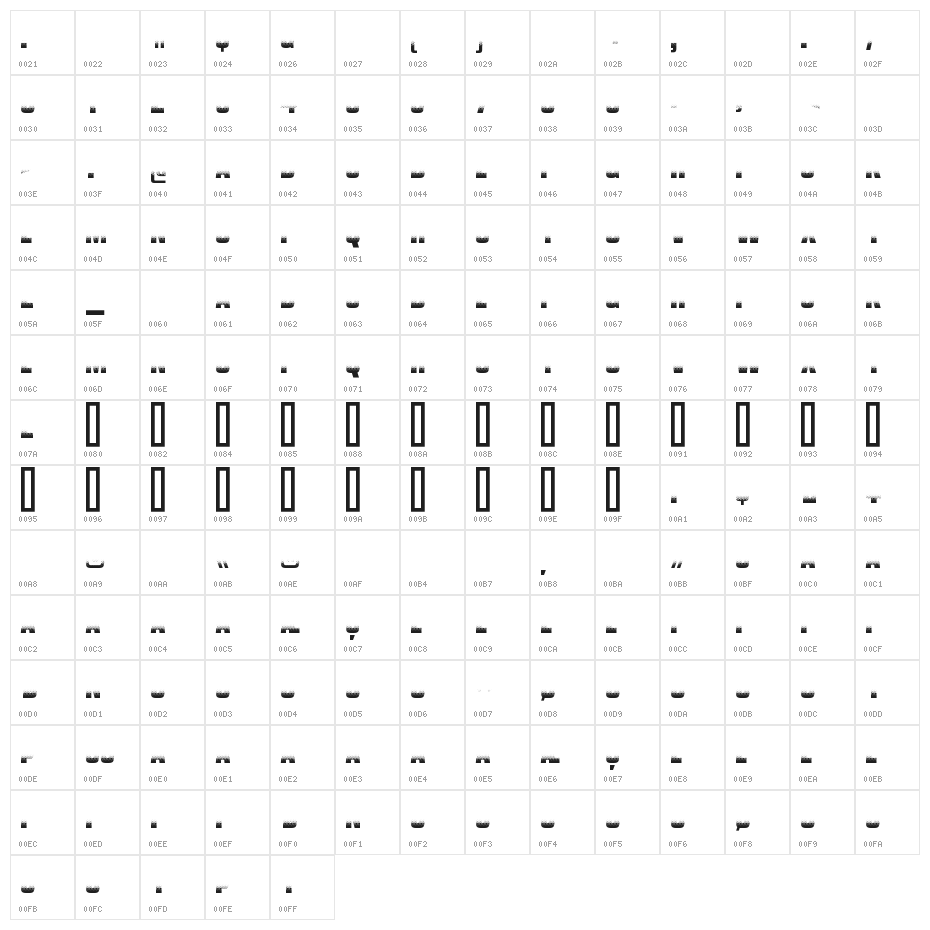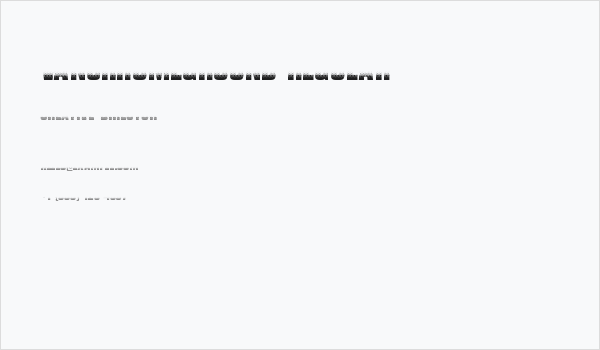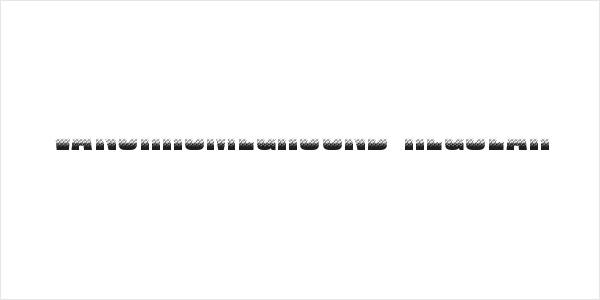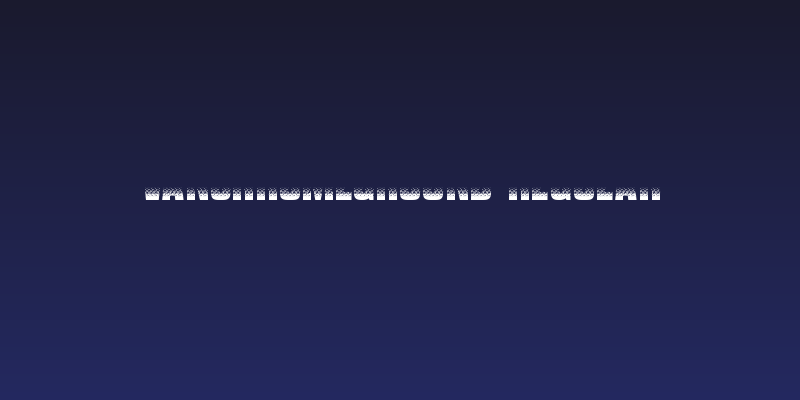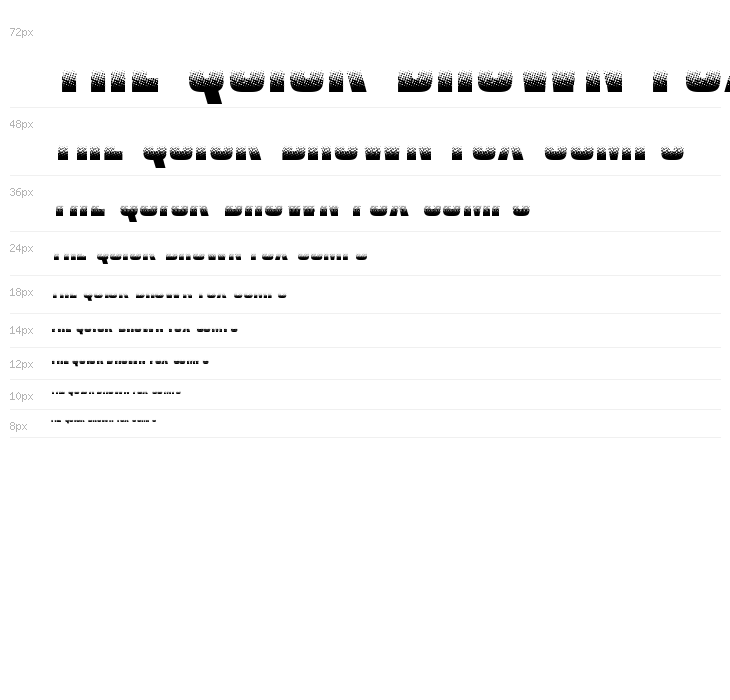
VanchromeGround-Regular Font
VanchromeGround-Regular Description
This font features a bold and modern design with a unique halftone gradient effect that transitions from solid black at the top to a dotted pattern towards the bottom. The uppercase and lowercase letters maintain a consistent style, creating a cohesive look. The numerals and special characters are designed to match the overall aesthetic, making them suitable for various creative applications. The font's distinct style is eye-catching and ideal for projects that require a strong visual impact.
| Proposed Projects | Ideal for posters, album covers, branding, and advertisements that require a striking and modern look. |